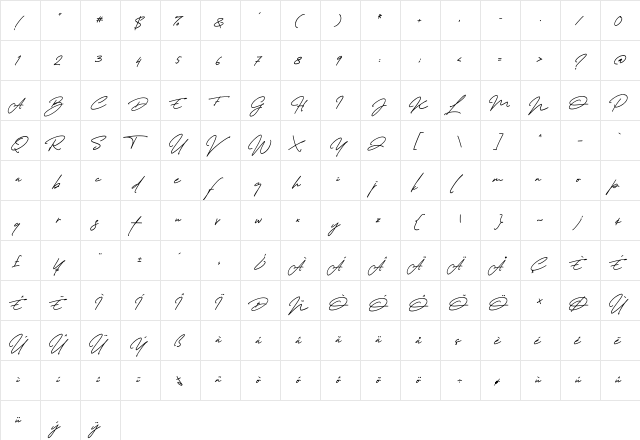
Thunder Stone Script Regular
Design Context for Thunder Stone Script Typeface
Thunder Stone Script flows with the natural rhythm of handwritten lettering, making it ideal for designs that call for warmth and personal expression.
Font Pairing: Combine Thunder Stone Script with a simple geometric sans for maximum contrast — the tension between flowing curves and clean structure is a classic typographic pairing.
Pro Tip: Pair Thunder Stone Script with a clean sans-serif for supporting text. The contrast between fluid script and geometric structure creates an elegant typographic hierarchy.